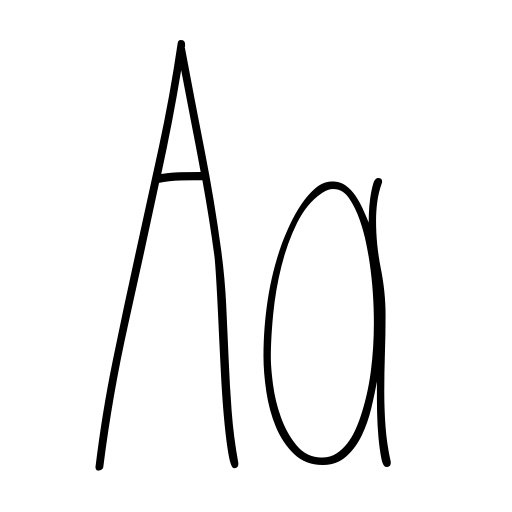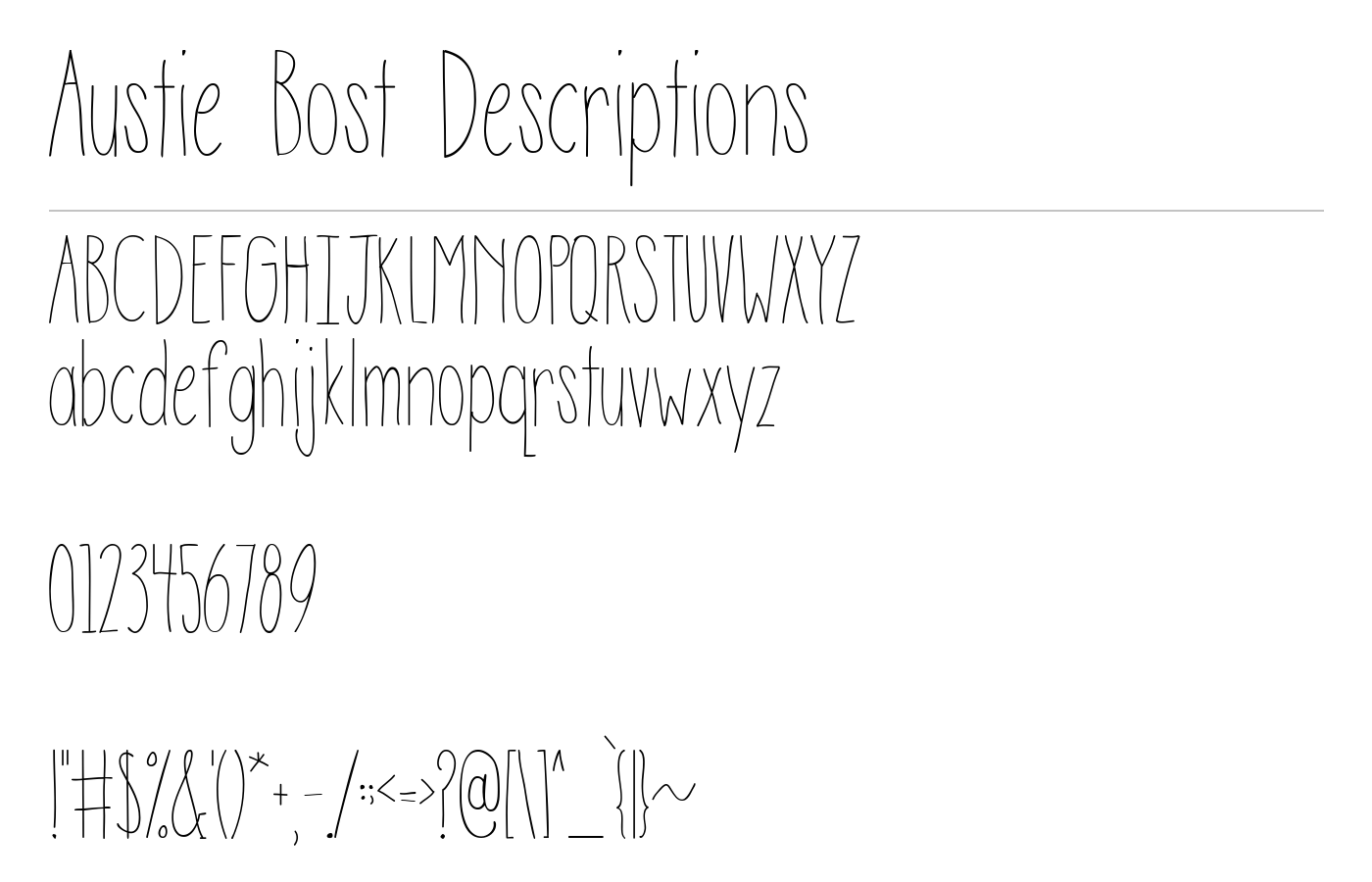
Austie Bost Descriptions is a tall, narrow, and delicate sans serif font with a distinctly handwritten, whimsical feel. Its thin strokes and irregular letterforms give it a playful yet elegant style, making it ideal for projects that seek a personal or quirky touch, such as invitations, creative branding, or informal editorial headings. This font works well where a light, airy atmosphere is desired without sacrificing readability.
Austie Bost Descriptions Font
About Austie Bost Descriptions Font
| Font family | Austie Bost Descriptions Font |
| Designer | Austin Owens |